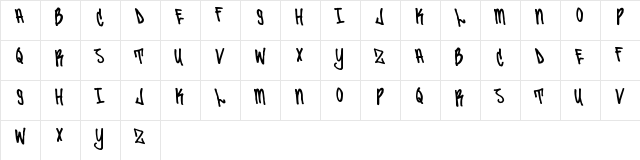
Ne Regular
Design Context for Ne Typeface
Ne is a composed and adaptable typeface that performs quietly and consistently across a wide range of design contexts.